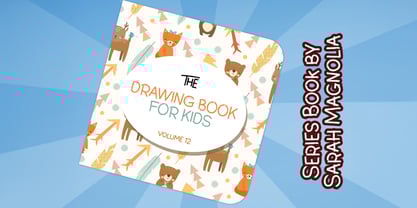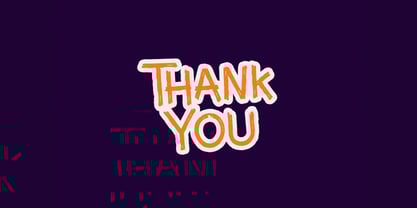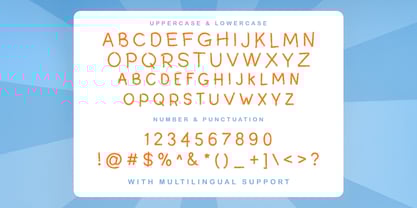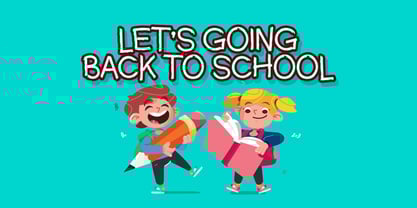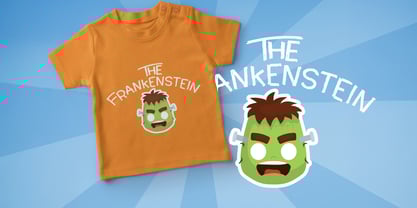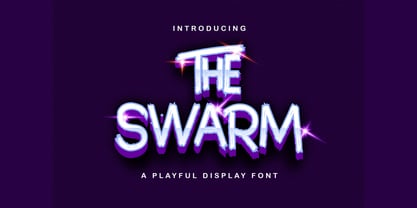
Die Schriftfamilie The Swarm wurde von Virgiawan Listanto entworfen und von Stringlabs Creative Studio veröffentlicht. The Swarm enthält 1 Stile.
The Swarm is a lively and eye catching display font buzzing with personality! With chunky shapes, quirky curves, and a bold attitude, this font is perfect for playful, kid-friendly, or attention grabbing designs that don’t take themselves too seriously. Great for headlines, posters, games, or creative branding, The Swarm brings energy, fun, and a splash of chaos in the best way!
The Swarm